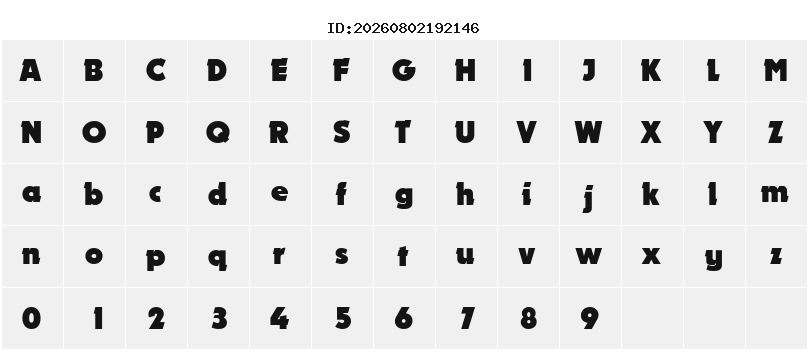
• Font Name: Nougat
• Full Font Name: Nougat ExtraBlack
About Nougat.ttf
Nougat.ttf is a modern, elegant sans-serif font designed for ultimate readability and visual harmony. Perfect for branding, headlines, web design, and print materials.